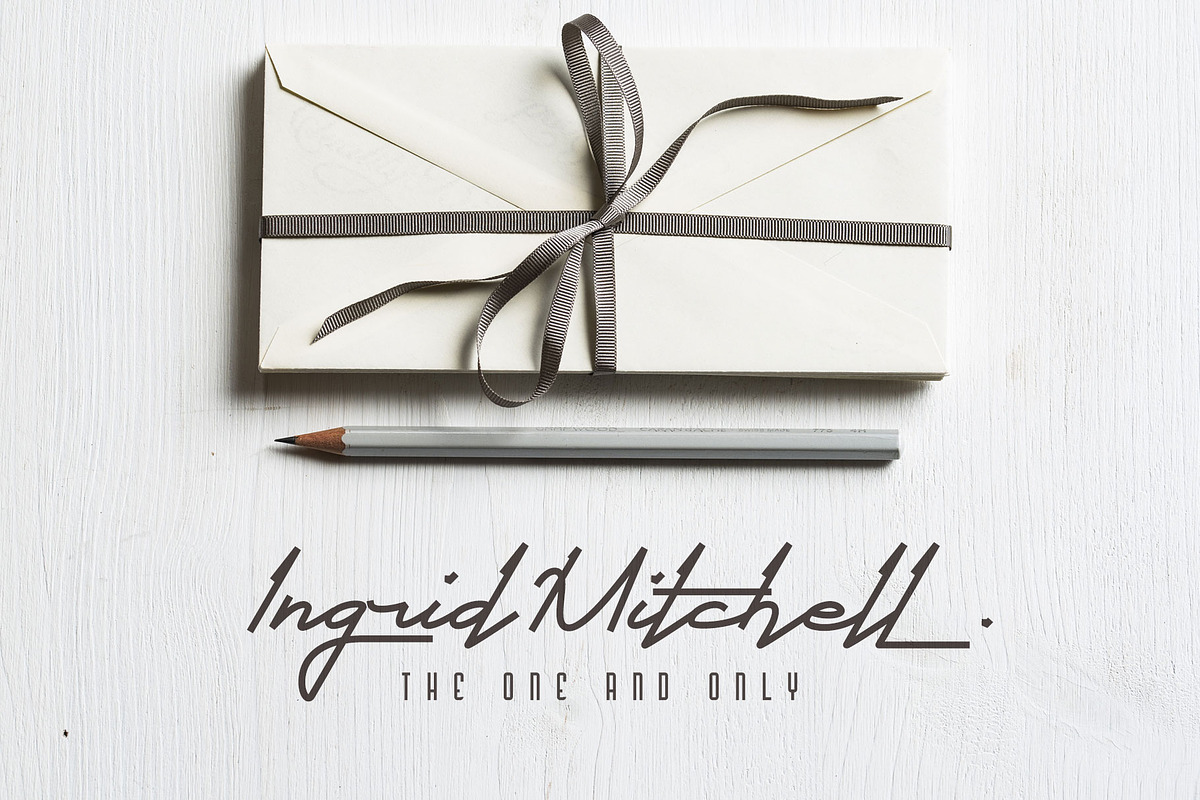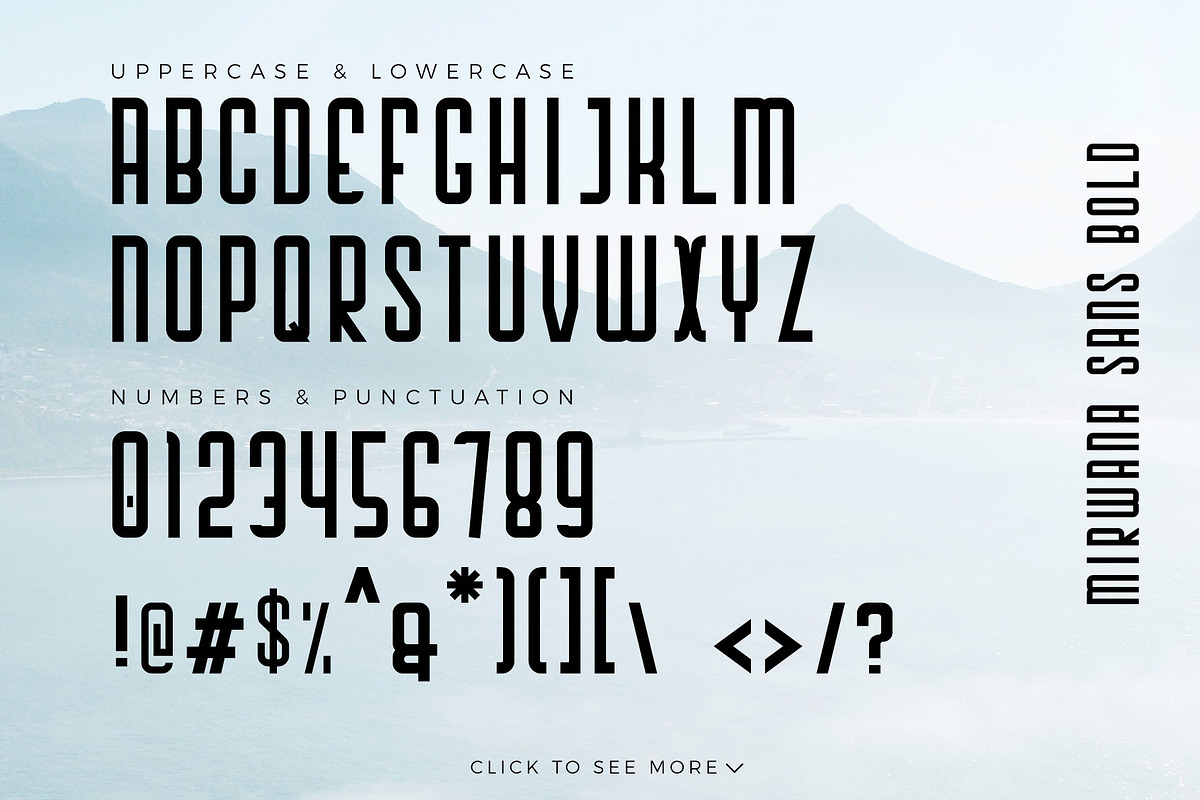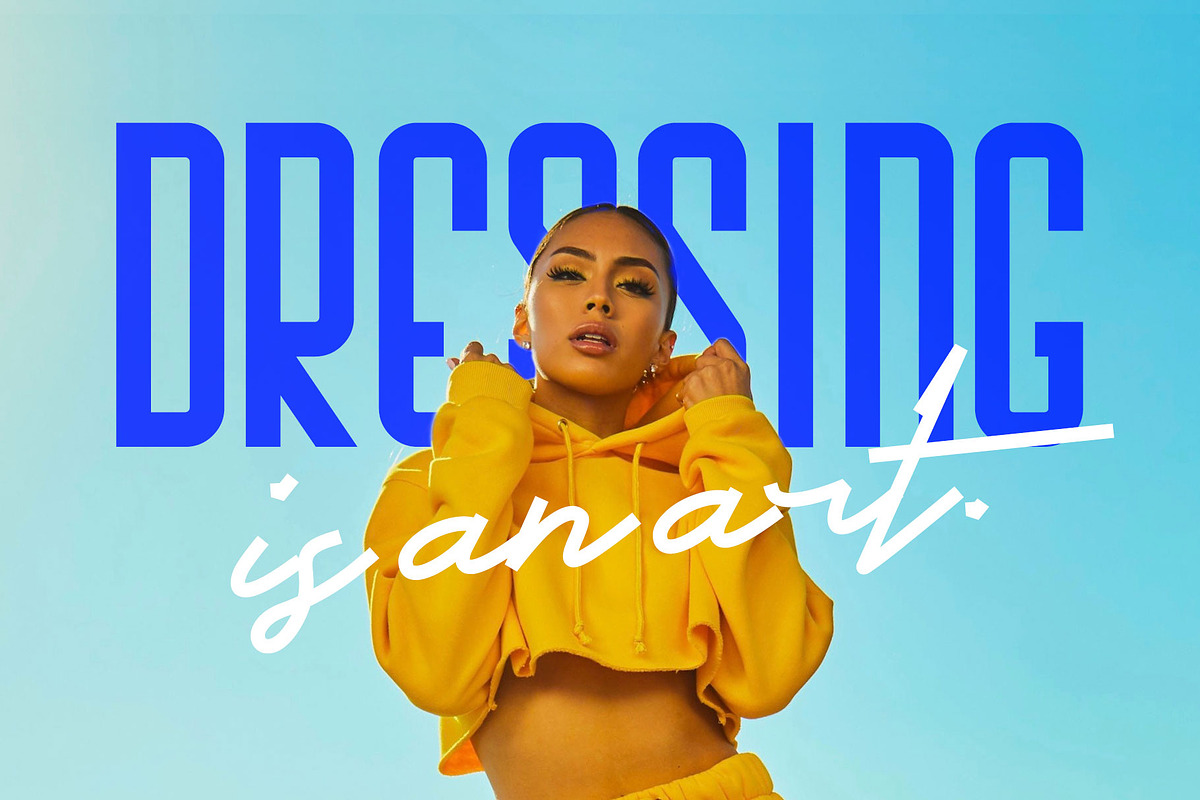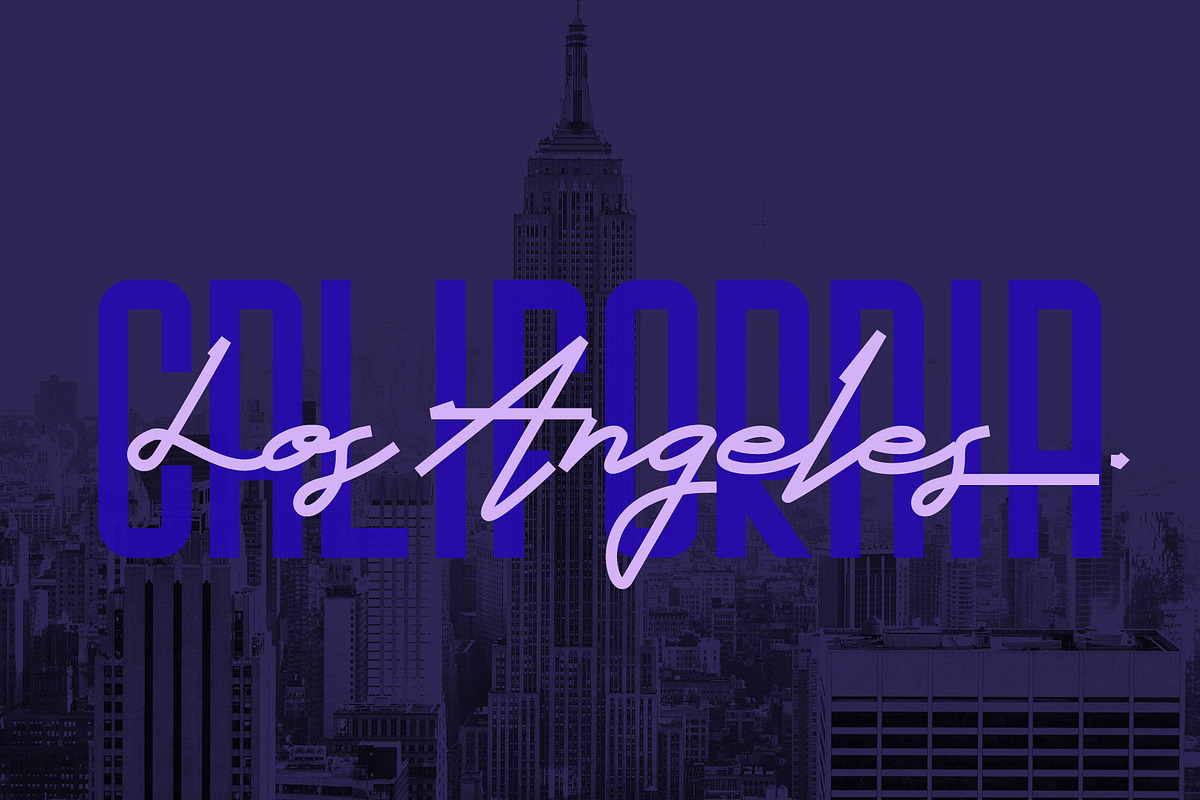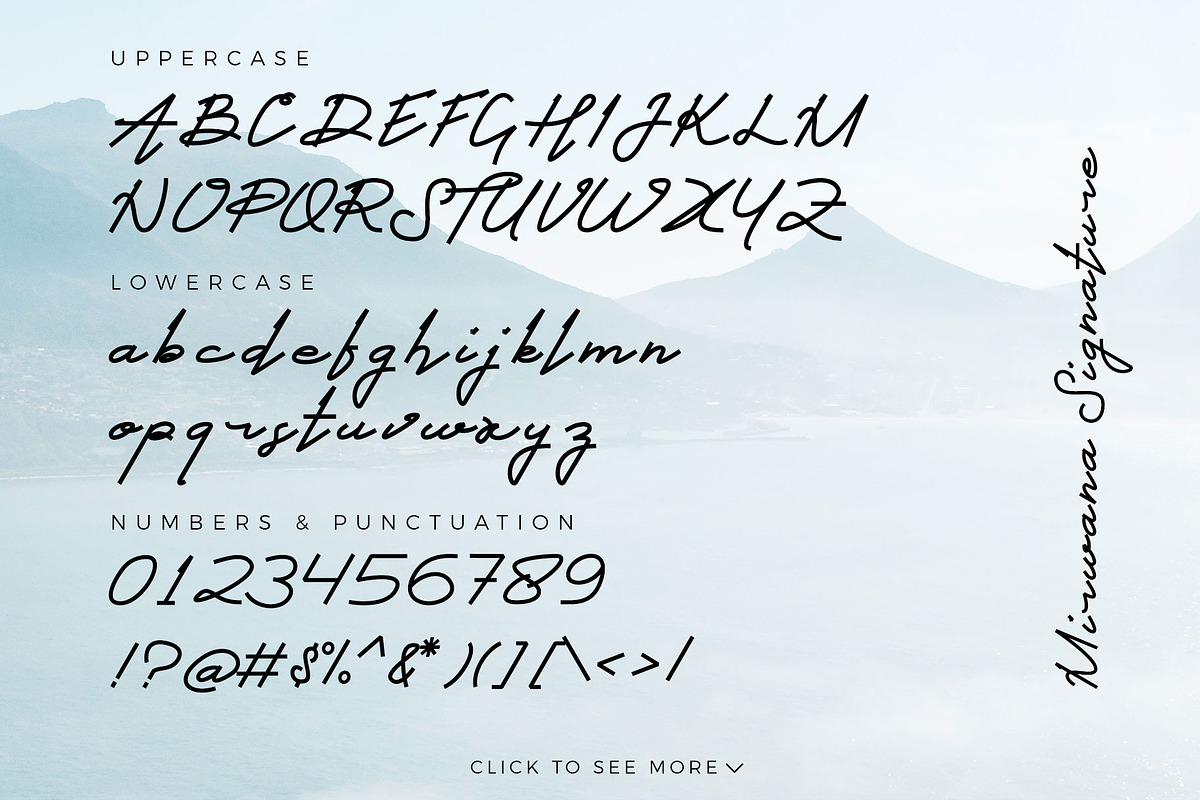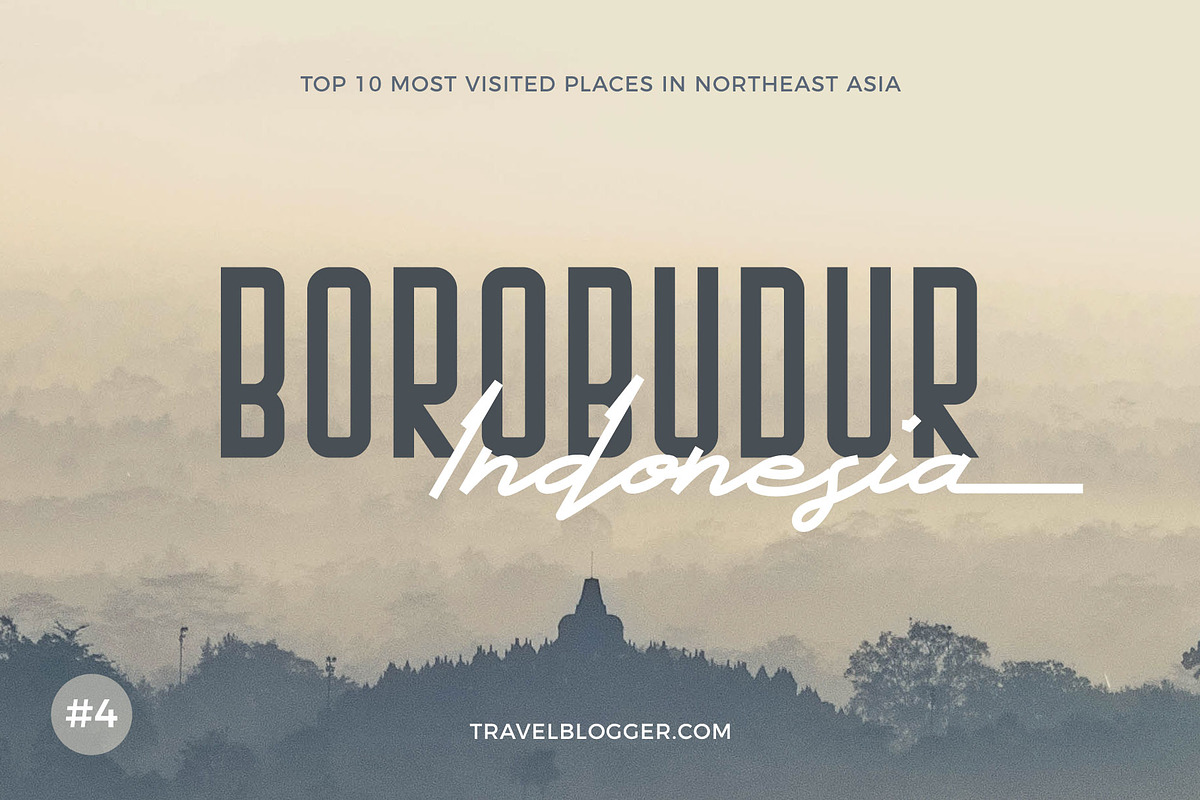
Mirwana Font Duo
Introducing : Mirwana Font Duo | The combination of Sans and Signature fonts!
Mirwana Font Duo will be perfect for many different projects such as logos & branding, invitation, stationery, wedding designs, social media posts, advertisements, product packaging, product designs, label, photography, watermark, special events or anything that need handwriting taste.
Mirwana Font Duo by Typoerba fits naturally into Branding, posters, packaging, typography.